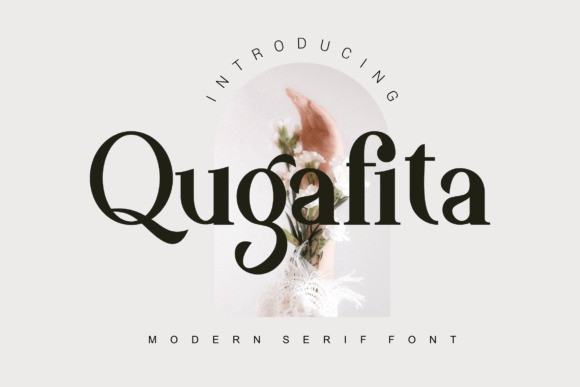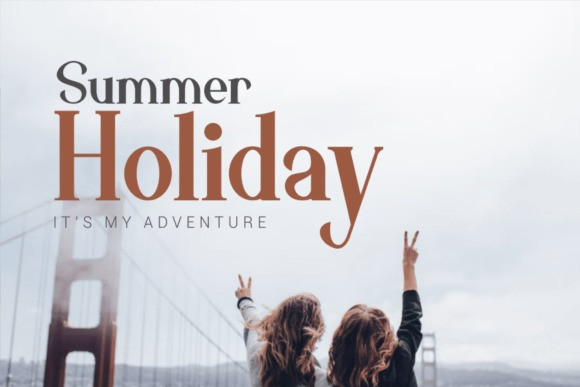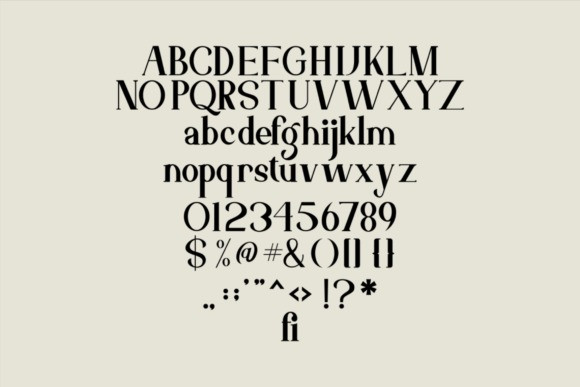
Qugafita Font
Qugafita is a bold and authentic serif font. The font is suitable for any branding project like logo, t-shirt printing, export, and many more. It will look outstanding in a wide range of contexts.